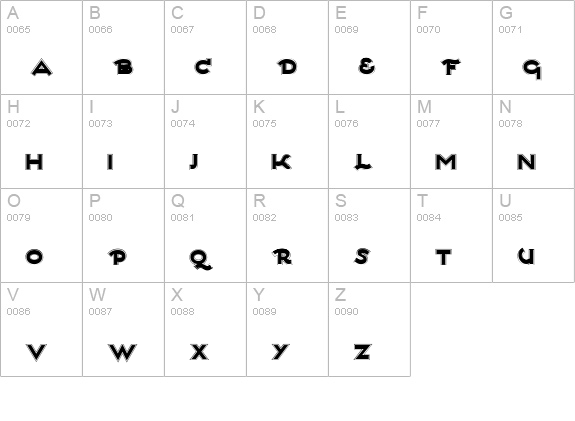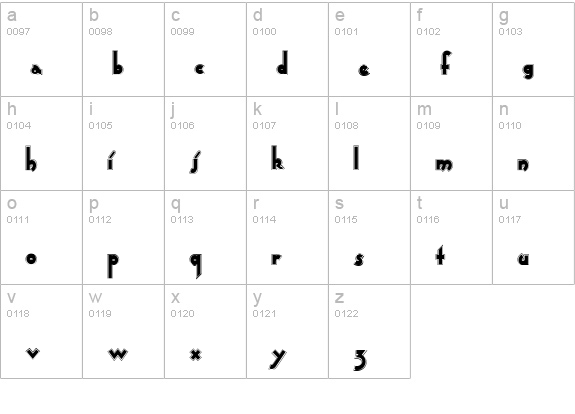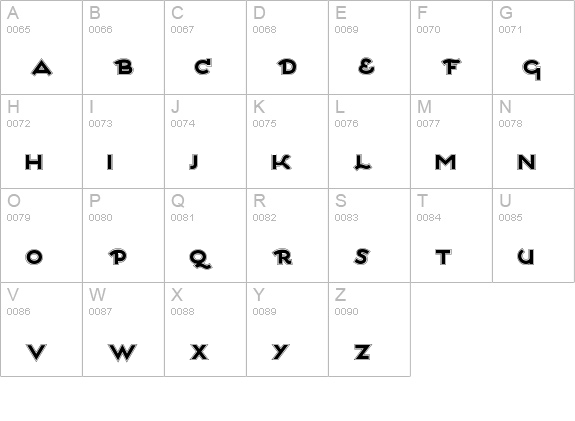
Captain Swabby NF Font Details
Captain Swabby NF font is a charming and versatile typeface that exudes a sense of adventure and whimsy. With its bold strokes and playful curves, this font is perfect for adding a touch of nautical flair to your projects. Whether you're designing a pirate-themed party invitation or creating a fun logo for a beachside café, Captain Swabby NF font is sure to make a splash. Best of all, Captain Swabby NF font is completely free to download at FontsMarket.com. This means that you can add this unique and eye-catching font to your collection without having to spend a penny. So why wait? Give your designs a seaworthy upgrade with Captain Swabby NF font today!